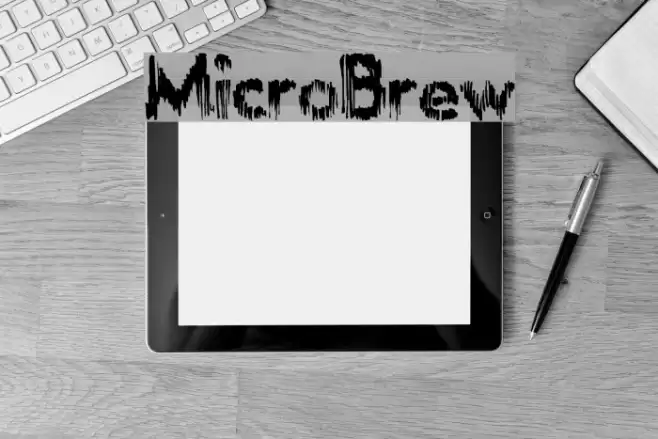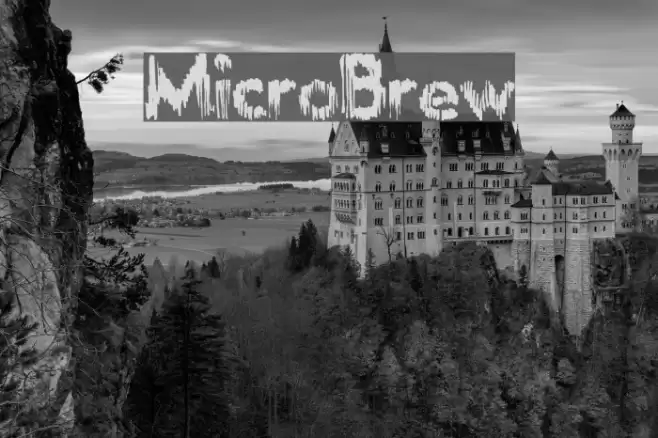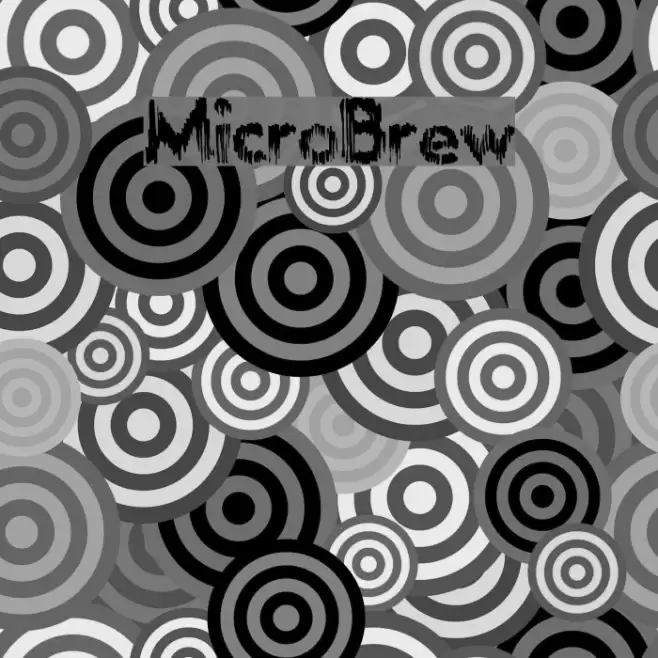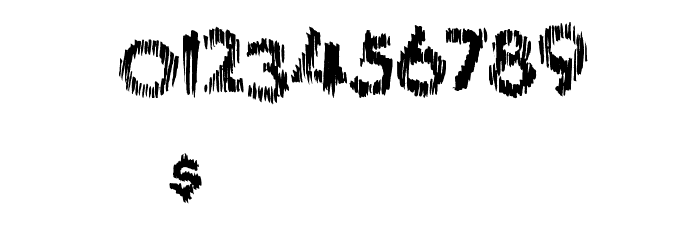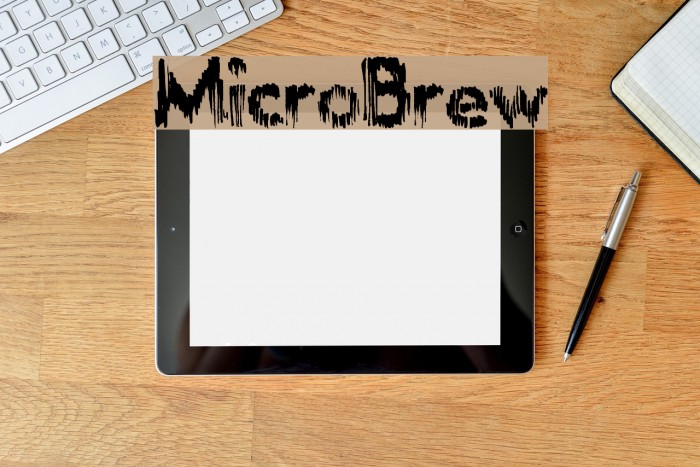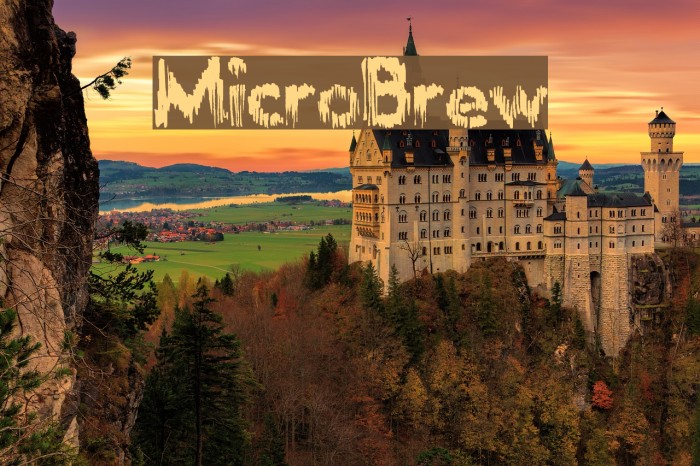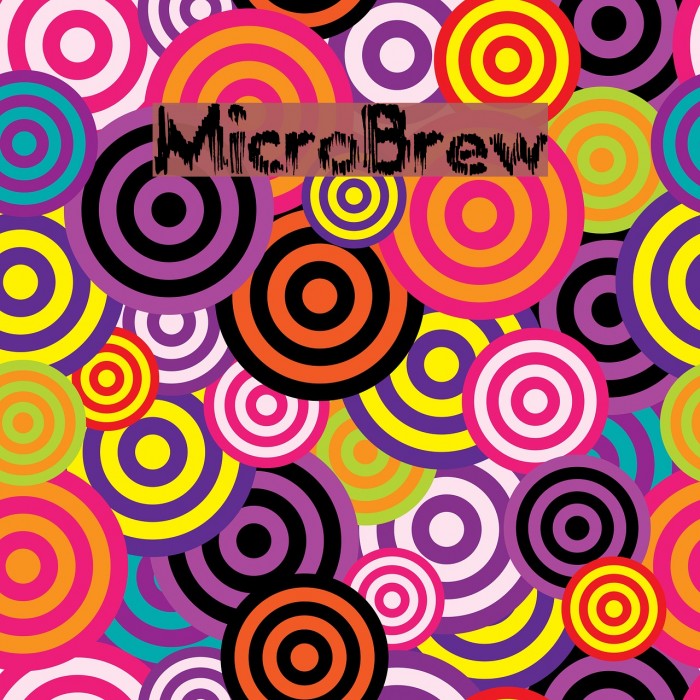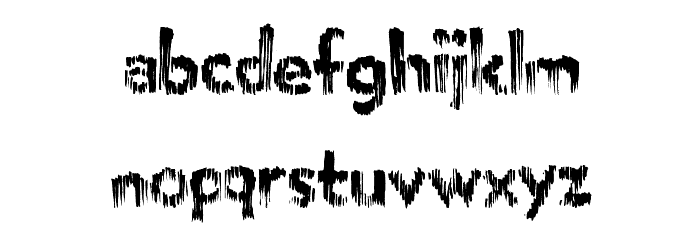
MicroBrew Font
MicroBrew Description
This font features a unique, distressed appearance with a rough, textured edge that gives it a dynamic and energetic feel. The characters are bold and slightly irregular, creating a sense of movement and spontaneity. The uppercase and lowercase letters maintain a consistent style, with jagged edges that suggest a hand-drawn or brush-like quality. The numbers and special characters follow the same aesthetic, making the font cohesive and versatile. Its distinctive style makes it ideal for projects that require a bold statement or an artistic touch.
A bold, textured font with a distressed, hand-drawn appearance from Uncategorized fonts.